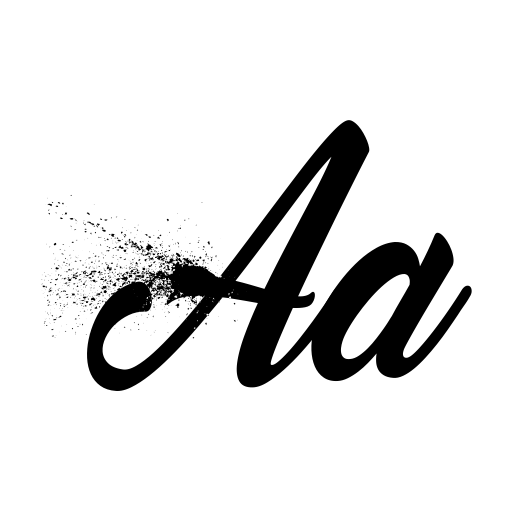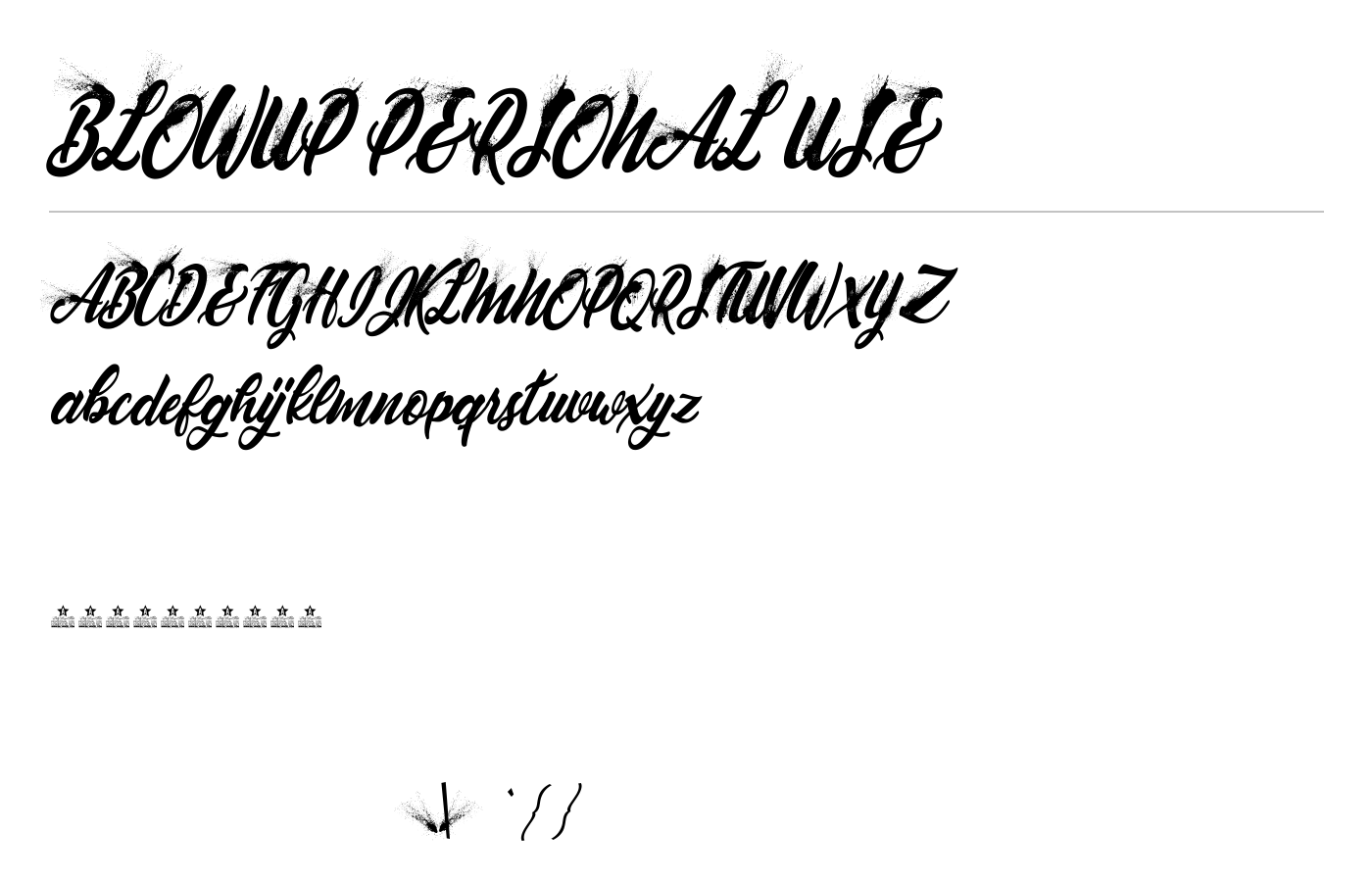
BLOWUP PERSONAL USE is a bold and energetic script font featuring a distinctive brushstroke texture that adds a raw, expressive vibe. Its fluid, connected letterforms with moderate contrast evoke a dynamic, informal feel, making it perfect for creative branding, eye-catching posters, and modern design projects that seek a playful yet impactful personality. This font shines in headlines and logos where vibrant, hand-crafted style stands out.
BLOWUP PERSONAL USE Font
About BLOWUP PERSONAL USE Font